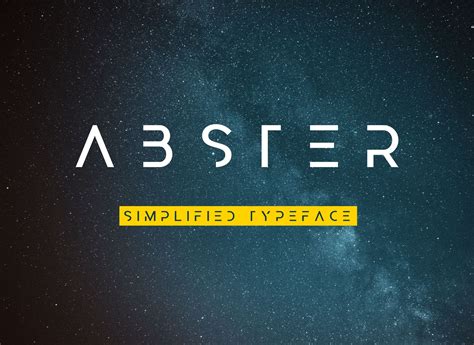
52652 free fonts in 25745 families. Looking to download stylish fonts for free? Because of this styling, you'll often see sans serif fonts used in short blocks of text. They're popular for their modern, simple, and minimalist style. Sonic empire is an urban typeface suited for music promotion, clubs, record label agencies and anything that has to do with modern. Angelinas script font is modern & luxury read more. Midline font duo is a two different font styles : In modern era, typeface is not interchange with the word font, in professional typography.
Made evolve is a modern space font family featuring a combination of futuristic and geometric elements.
Including serif, sans serif, script, display, brush and grotesque. The style of this font are minimalist, signature, modern, elegant, luxury Many of the free fonts featured here were developed by designers, for designers, so they understand the need for versatile, polished, free typefaces firsthand. The home of free fonts since 1998. Download the best free serif fonts that are hand picked collections by our editorial experts and can be used on mac, pc, website.
Discover these 54 tasteful free modern fonts for your use & enjoyment! Midline font duo is a two different font styles : Serif display and signature script. It's about the senses, after all. Graphic and web designers rejoice! The sans serif set is neat and clean with different style. In this video, i will show my favorite free fonts for web design, mobile app design. This professional sans serif font feels reminiscent of a modern newspaper's typeface.
Serifs and display fonts dominate, while mixing typefaces is a fundamental practice for generating stunning designs where typefaces with very different qualities, weights and styles work together in perfect harmony, to create a very strong visual impact.
In modern era, typeface is not interchange with the word font, in professional typography. Discover these 54 tasteful free modern fonts for your use & enjoyment! Anthasic, better signature, boatman vintage, chillout, eusthalia, eusthalia font family, manhattan brush script, matane, pharosi, royaland vintage, the blendhes script. The modern fonts in this collection are free in all three ways, so please make sure you read the designer's details before using them in your designs. The sans serif set is neat and clean with different style.
Handwritten notes are indisputably more intimate than typed letters, and that's exactly the feeling that free handwriting fonts bring to a project. In this video, i will show my favorite free fonts for web design, mobile app design. Some fonts provided are trial versions of full versions and may not allow embedding unless a commercial license is purchased or may contain a limited character set. The home of free fonts since 1998. Serif display and signature script. Anthasic, better signature, boatman vintage, chillout, eusthalia, eusthalia font family, manhattan brush script, matane, pharosi, royaland vintage, the blendhes script. Home blog free fonts collections free modern typewriter fonts. Graphic and web designers rejoice!
Spectacular bundle (20 fonts + bonus). Huge or tiny, nordic looks great, and you can tell a lot of work went into each painstaking stroke. This is a collection of completely free modern typewriter fonts, from 80s east german cella typewriters by vernon adams. Angelinas script font is modern & luxury read more. They're popular for their modern, simple, and minimalist style. Anthasic, better signature, boatman vintage, chillout, eusthalia, eusthalia font family, manhattan brush script, matane, pharosi, royaland vintage, the blendhes script. Modeka is a regular thin width modern typeface fully featuring uppercase, lowercase, special characters and numbers licensed as free for personal or stretch sans typeface. Free fonts & typefaces for desktop & web. Browse by alphabetical listing, by style, by author or by popularity. Download 10,000 fonts with one click for $19.95. Discover these 54 tasteful free modern fonts for your use & enjoyment! A futuristic font in two styles brings both retro vibes and dreams of the future. Sonic empire is an urban typeface suited for music promotion, clubs, record label agencies and anything that has to do with modern.